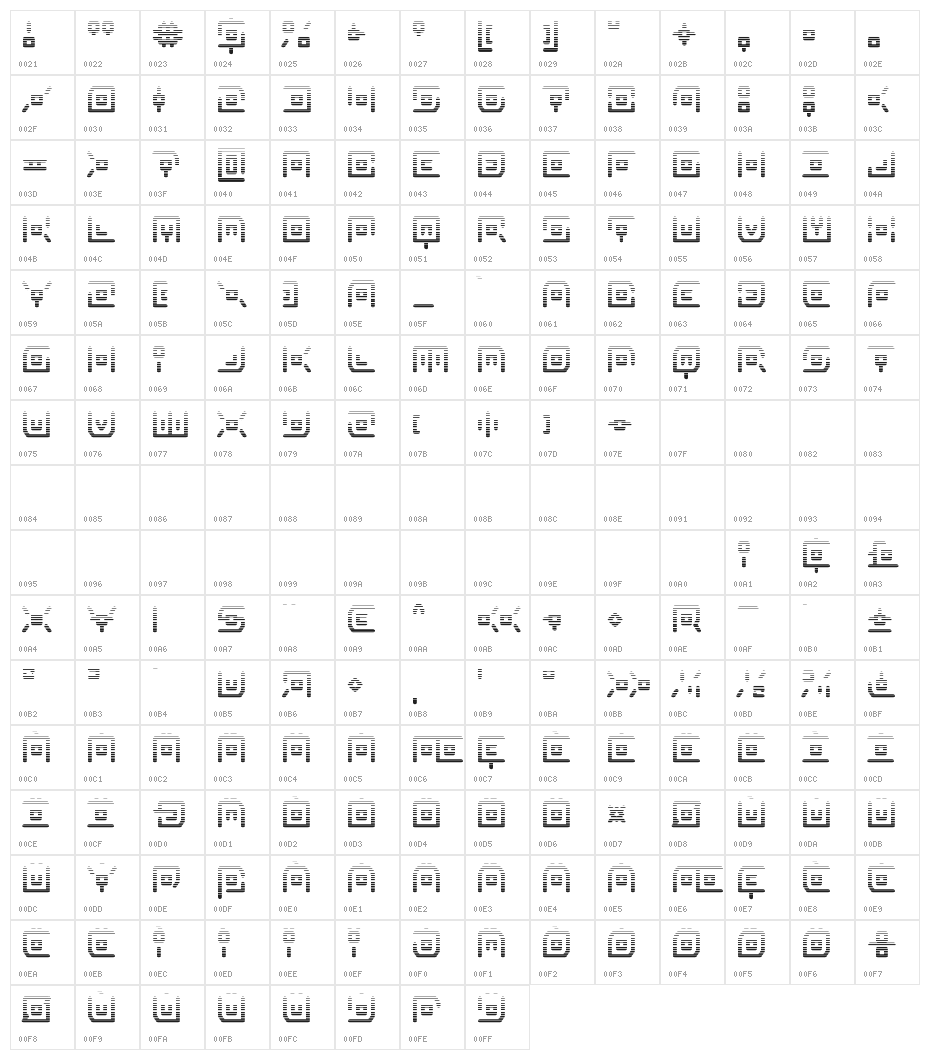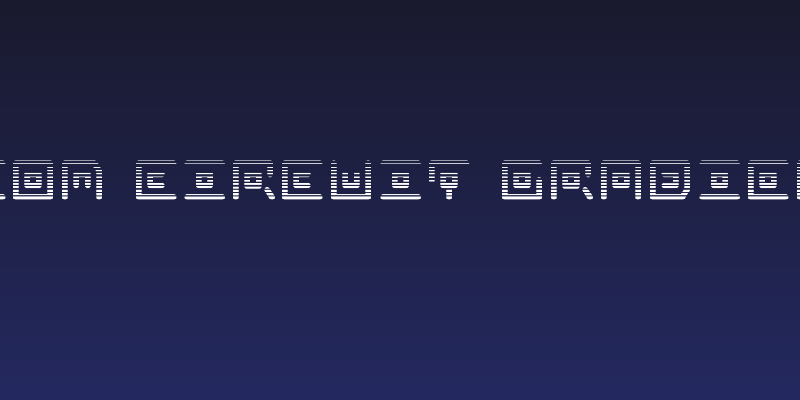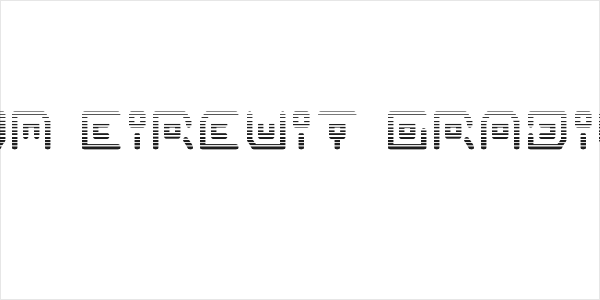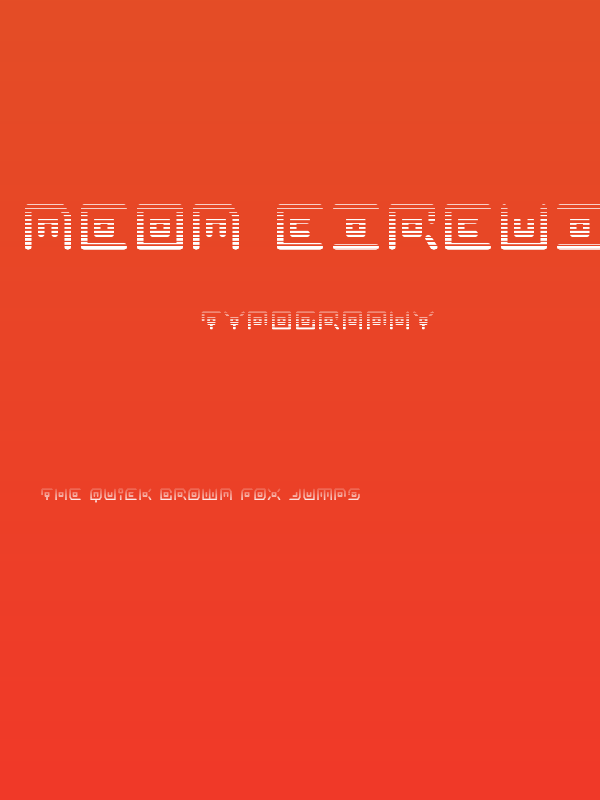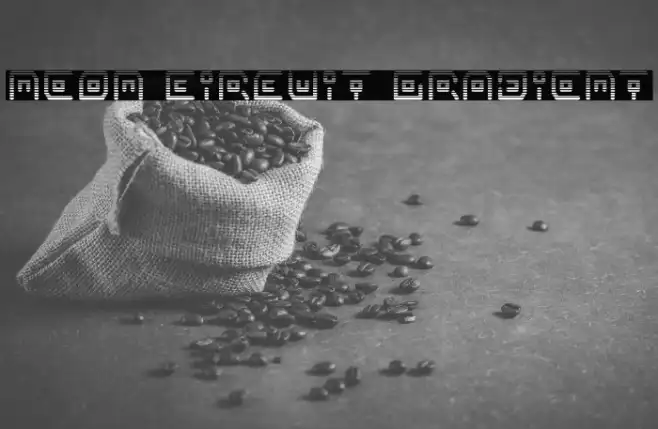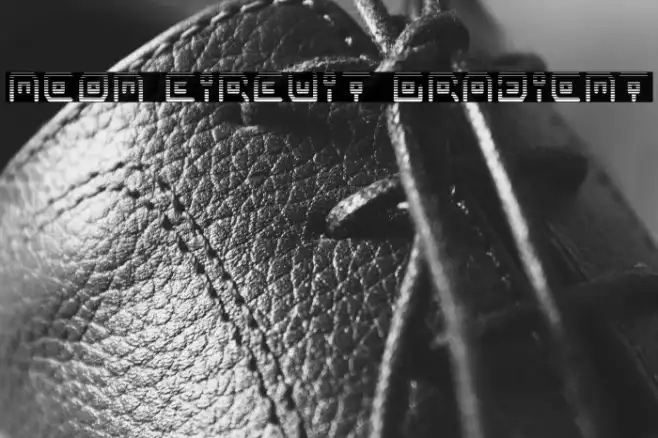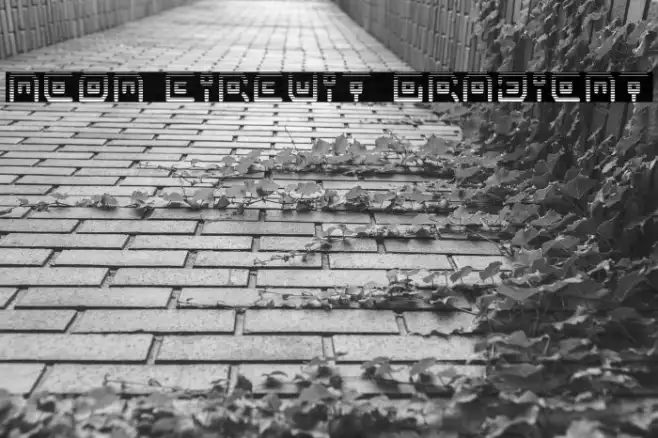
Neon Circuit Gradient Font
Neon Circuit Gradient Description
This font features a futuristic and digital aesthetic, reminiscent of neon lights and circuit patterns. Each character is composed of multiple horizontal lines that create a gradient effect, giving the impression of depth and movement. The design is highly geometric, with sharp angles and a consistent line thickness throughout. This style evokes a sense of modern technology and innovation, making it ideal for projects that require a cutting-edge look. The font's unique structure and visual complexity make it stand out, ensuring that any text set in this typeface will capture attention.
| Proposed Projects | Ideal for tech-themed branding, sci-fi movie posters, video game titles, and digital art projects. |